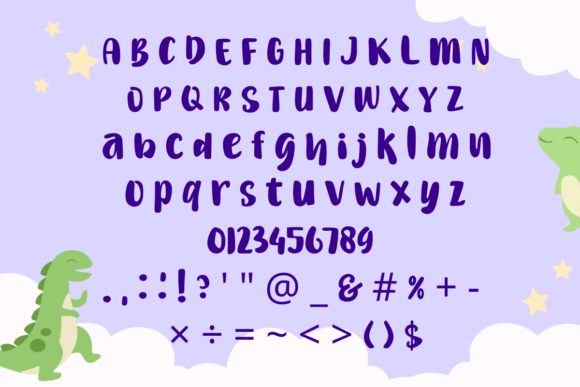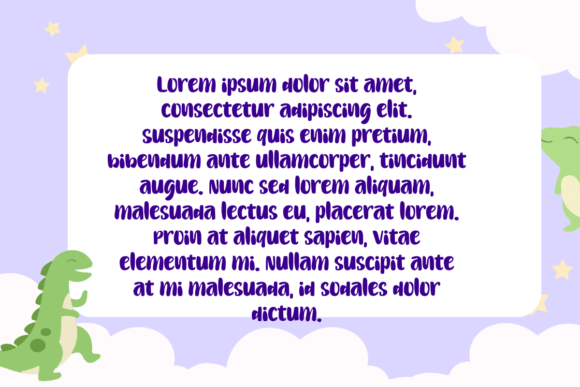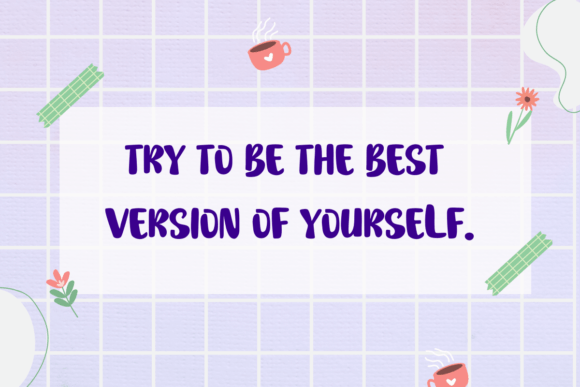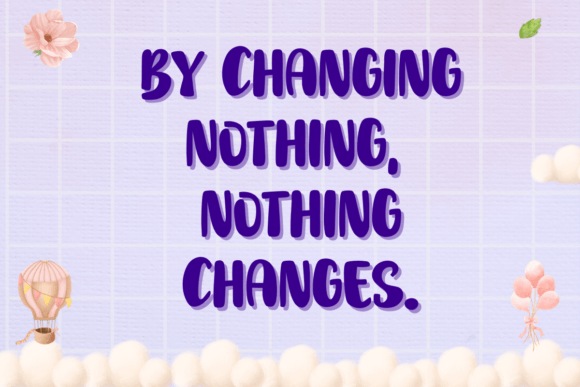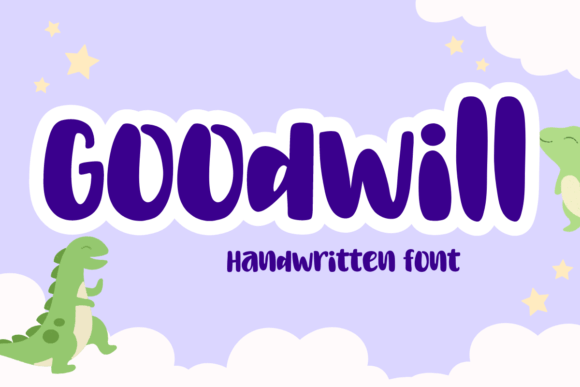
Introducing Goodwill Font: The Sweet and Friendly Handwritten Font for Creative Expression
Are you a designer, crafter, or simply someone who loves to write and create? Look no further than Goodwill Font, a beautiful and friendly handwritten font that’s perfect for taking notes, writing a diary, or making greeting cards. In this article, we’ll dive into the world of Goodwill Font and explore its features, benefits, and uses.
What is Goodwill Font?
Goodwill Font is a sweet and friendly handwritten font designed to bring a personal touch to your writing and creative projects. Its gentle, cursive strokes and rounded edges give it a warm and inviting feel, making it perfect for a wide range of applications.
Key Features of Goodwill Font
- Handwritten style: Goodwill Font is a genuine handwritten font, created to mimic the natural flow and imperfections of handwriting.
- Friendly and approachable: The font’s gentle curves and rounded edges give it a friendly and approachable feel, perfect for connecting with your audience.
- Versatile: Goodwill Font is suitable for a wide range of projects, from personal notes and diaries to greeting cards, invitations, and more.
- Easy to read: The font’s clear and legible design makes it easy to read, even at smaller sizes.
Uses for Goodwill Font
Goodwill Font is perfect for designers, crafters, and writers who want to add a personal touch to their work. Here are some ideas to get you started:
- Journaling and diary writing: Add a personal touch to your journal or diary with Goodwill Font.
- Greeting cards and invitations: Create beautiful, handmade-style greeting cards and invitations for special occasions.
- Note-taking: Use Goodwill Font to add a touch of personality to your notes and to-do lists.
- Scrapbooking and crafting: Goodwill Font is perfect for scrapbooking, card making, and other paper crafting projects.
- Digital design: Use Goodwill Font in your digital designs, such as social media graphics, blog posts, and more.
Benefits of Using Goodwill Font
So why choose Goodwill Font for your creative projects? Here are just a few benefits:
- Adds a personal touch: Goodwill Font brings a personal, human touch to your writing and designs.
- Enhances creativity: The font’s unique and playful style can inspire creativity and help you think outside the box.
- Versatile and adaptable: Goodwill Font can be used in a wide range of projects and applications.
Tips for Using Goodwill Font
Here are a few tips for getting the most out of Goodwill Font:
- Experiment with sizes and colors: Try out different sizes and colors to see what works best for your project.
- Mix and match with other fonts: Combine Goodwill Font with other fonts to create a unique and interesting look.
- Use it for headings and body text: Goodwill Font works well for both headings and body text, making it a versatile choice for a wide range of projects.
Goodwill Font is a beautiful and friendly handwritten font that’s perfect for designers, crafters, and writers who want to add a personal touch to their work. With its gentle, cursive strokes and rounded edges, Goodwill Font is sure to bring a smile to your face and inspire your creativity. Whether you’re taking notes, writing a diary, or making greeting cards, Goodwill Font is the perfect choice.